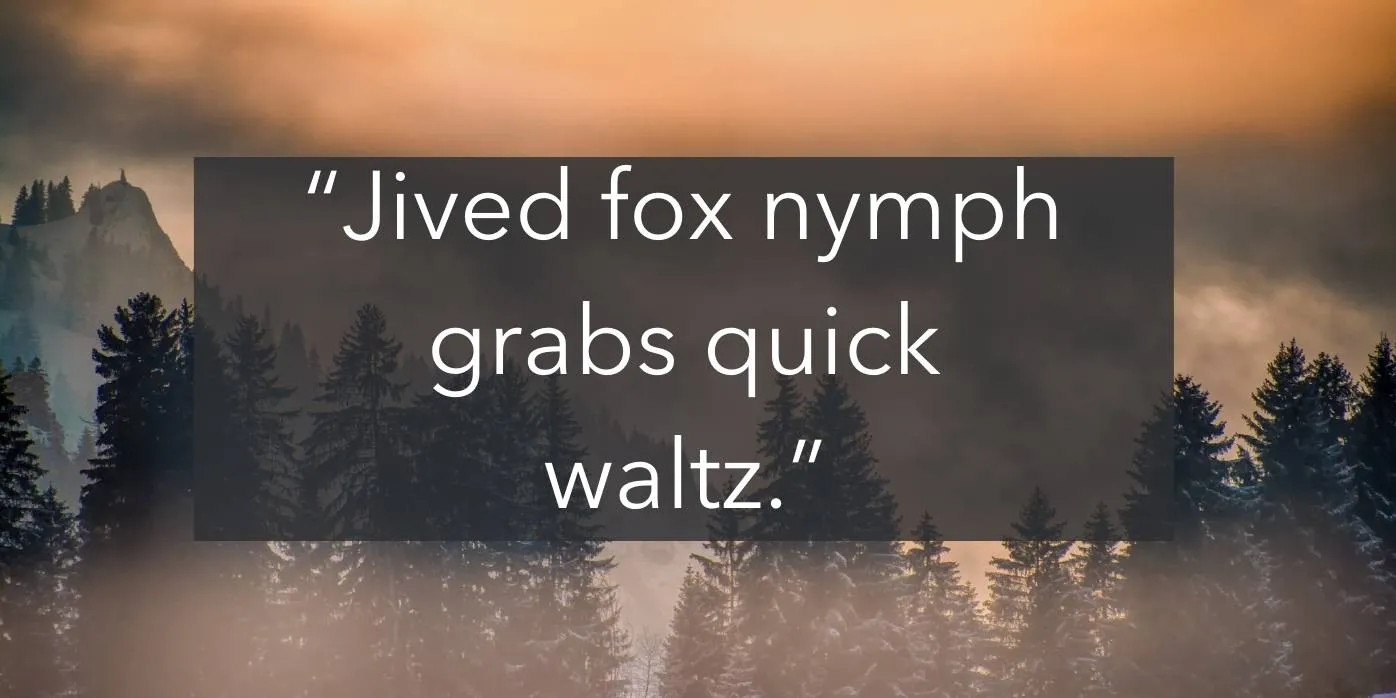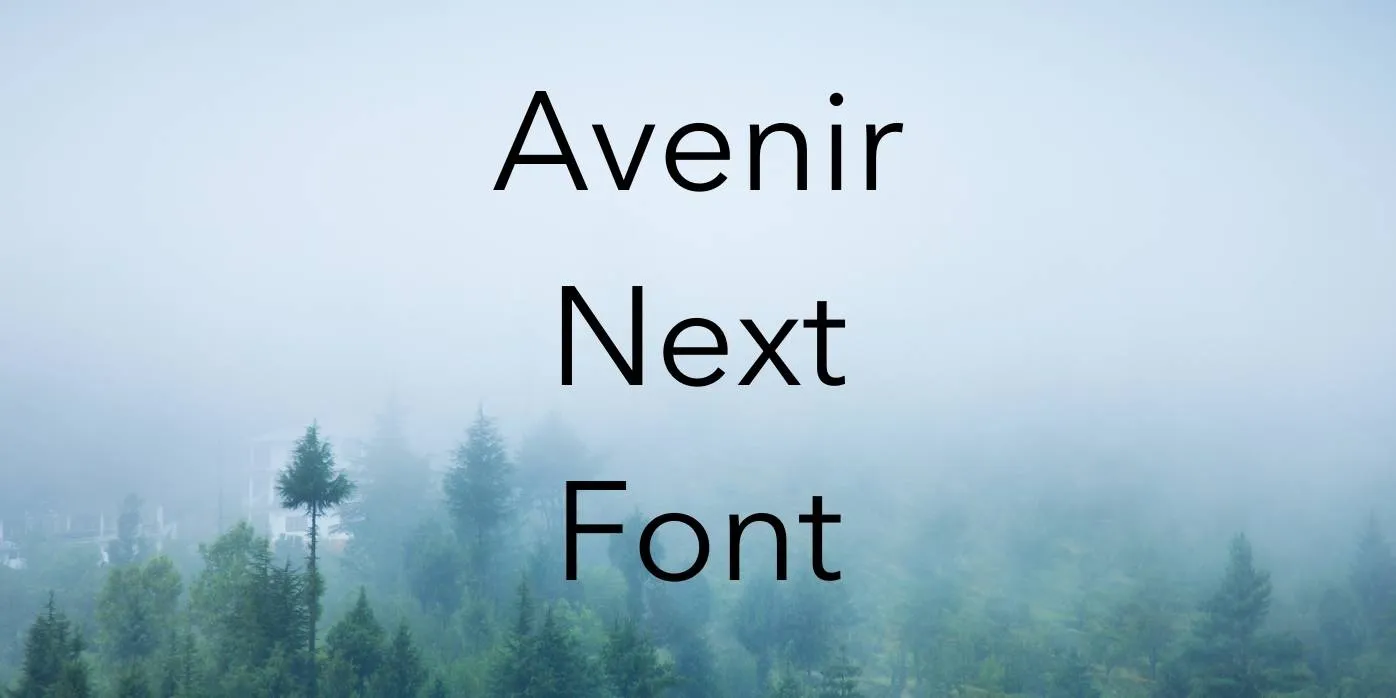
Avenir Next Font
Avenir Next Font is developed by a well-known designer Adrian Frutiger in the year 1988. This typeface belongs to the Sans-Seif typeface. This stylish font is a versatile and flexible font that is suitable for different text sizes. This classic font family has 8 weights and it is perfect for scientific, technical, and mathematical texts.
It is also specified by the CSS family. This cozy typeface has an interesting history behind its development. It was commissioned by the European airline company Lufthansa. This typeface had to be updated regularly for different advertisements and signage.